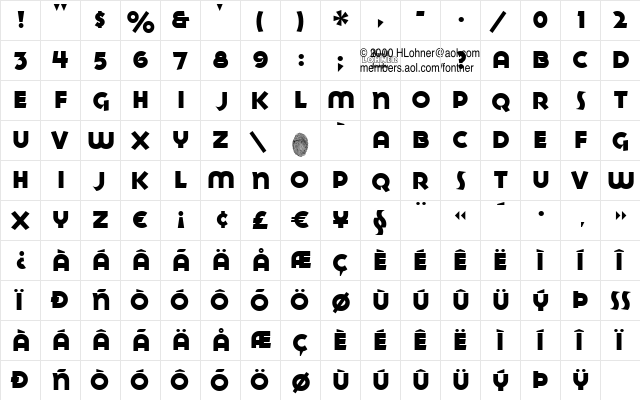
Goya Heavy
Design Context for Goya Typeface
Goya is a composed and adaptable typeface that performs quietly and consistently across a wide range of design contexts.